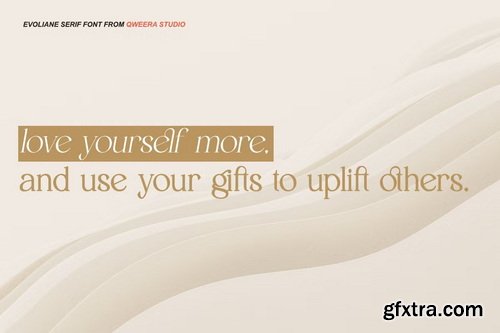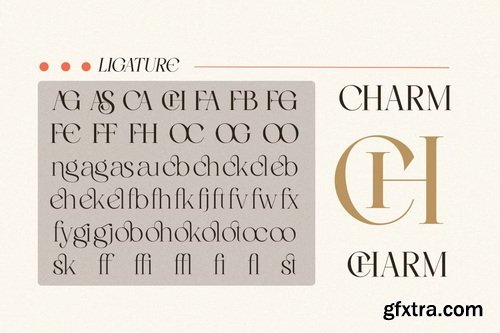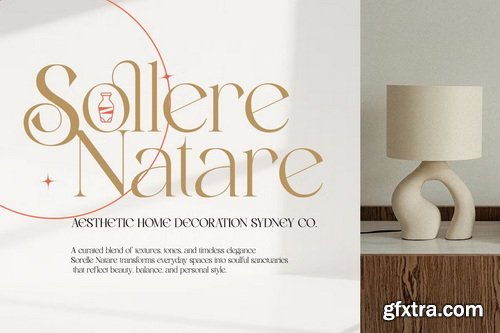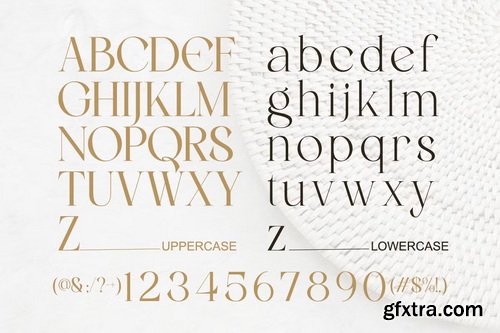
CreativeMarket - Evolaine Modern Elegant Minimalist
- With its fluid lines, refined terminals, and sophisticated alternates, Evolaine captures both softness and strength in one typeface. Designed to elevate brands and deliver clarity with elegance, it feels right at home in both fashion and editorial contexts.
- Use it for aesthetic logo marks, packaging design, or lifestyle presentations — Evolaine’s slender serifs and unique glyphs are crafted to leave a memorable impression.